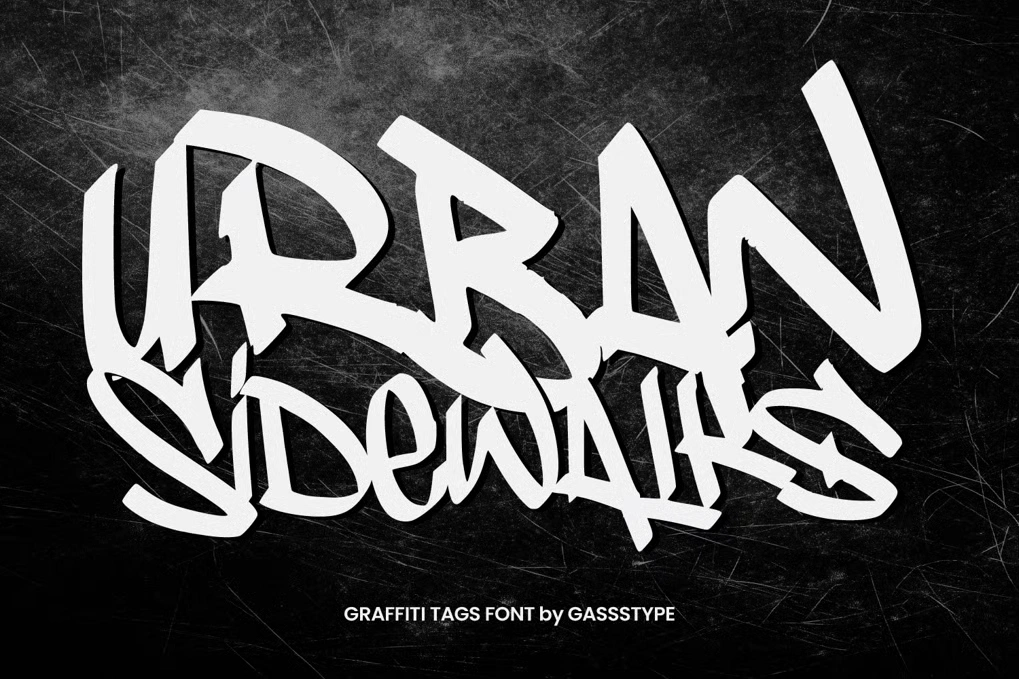
Urban Sidewalks
Side Walks – Simple Graffiti Tags is a casual graffiti-style font featuring clean, hand-drawn tag lettering. Perfect for urban designs, streetwear branding, posters, and digital art, it captures the raw energy of street tags while remaining easily readable.